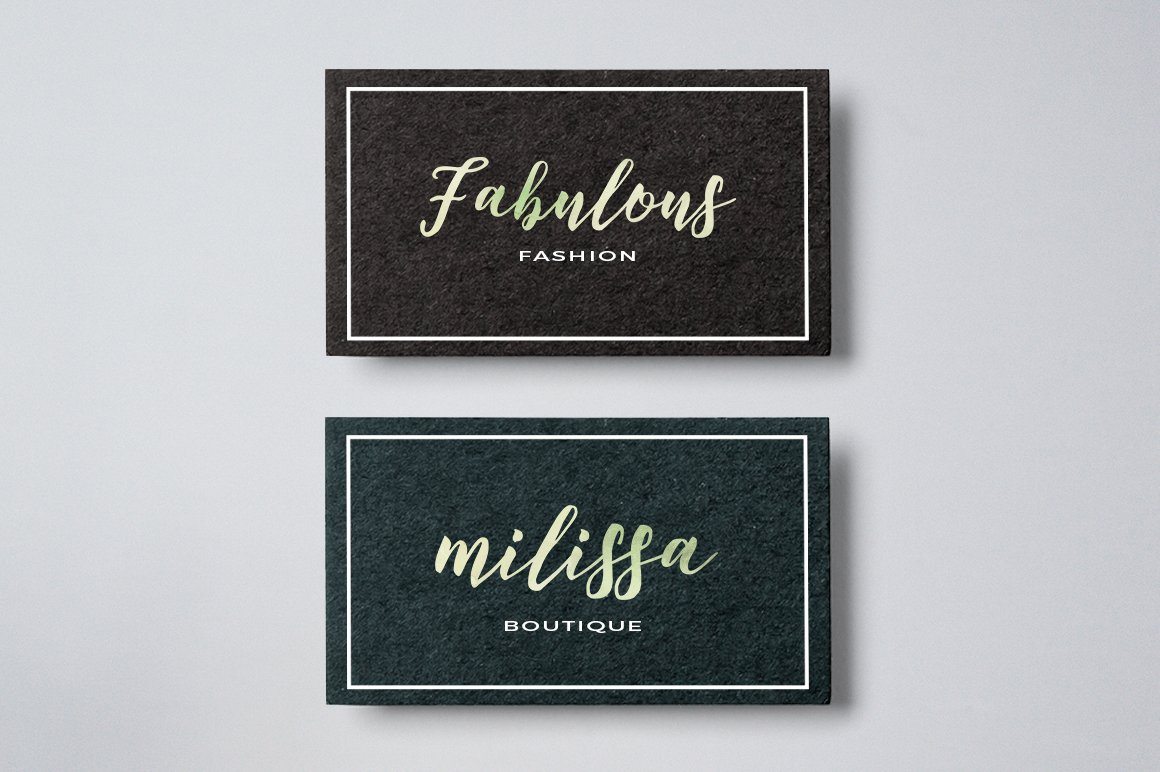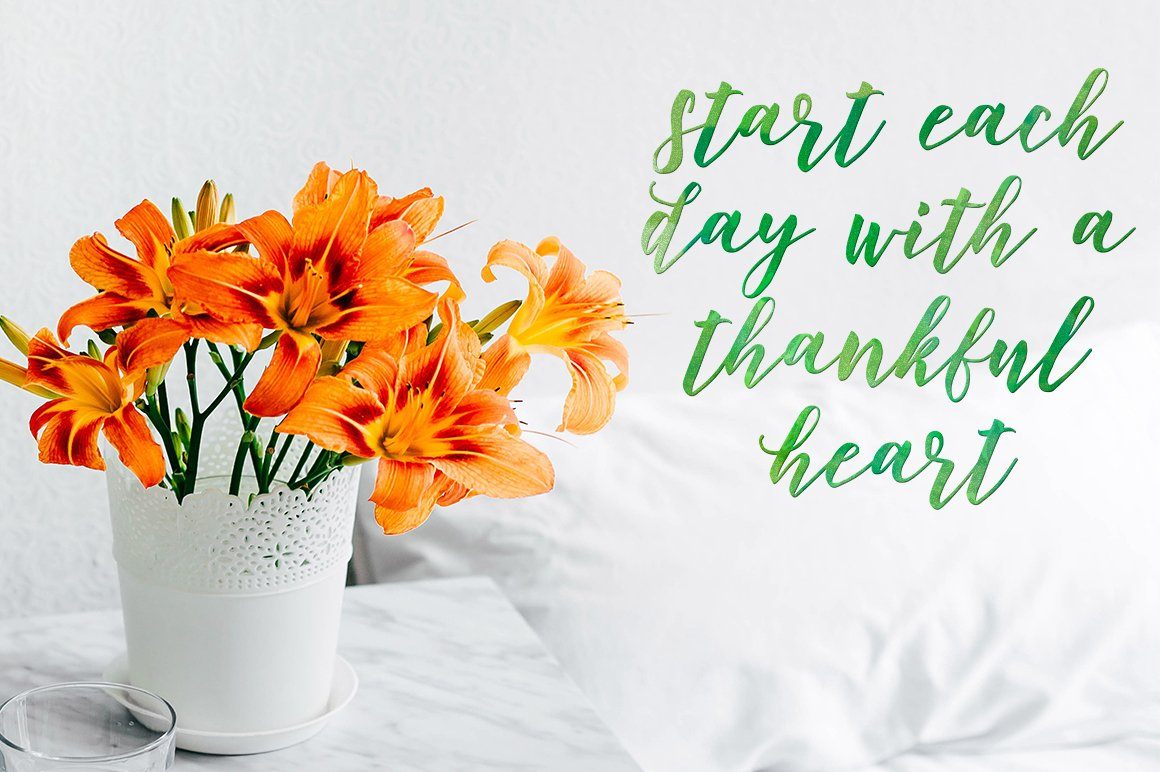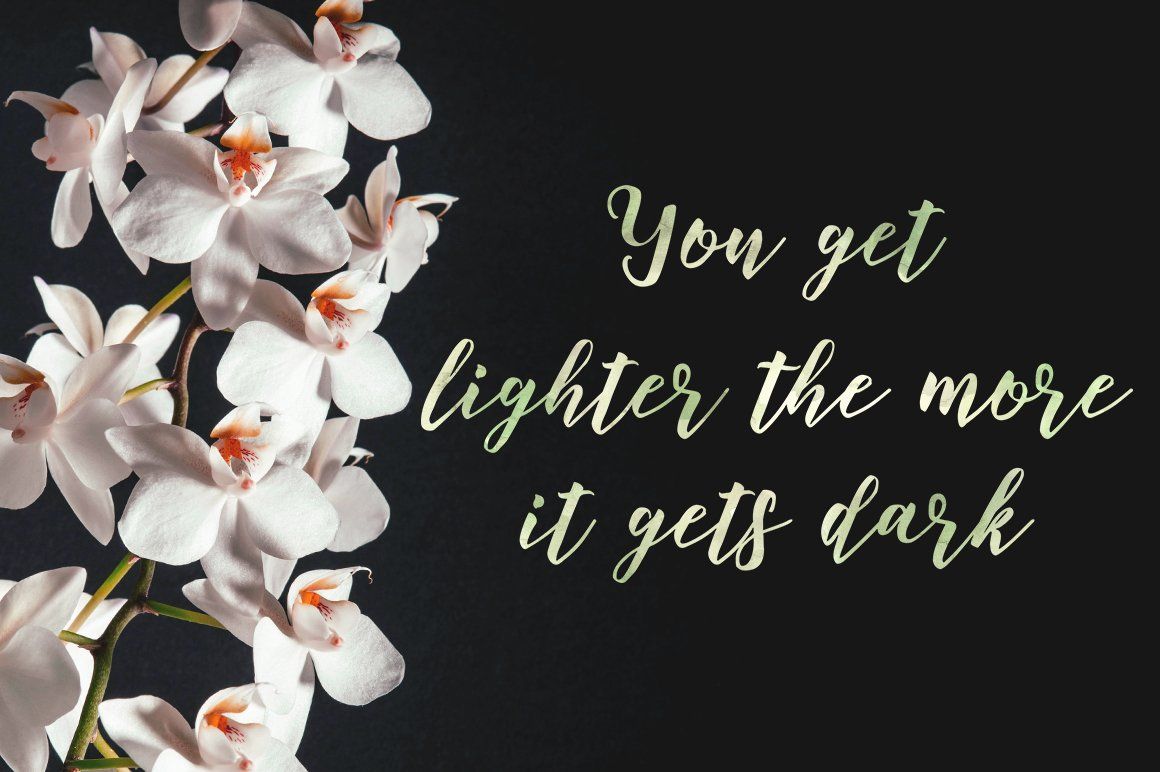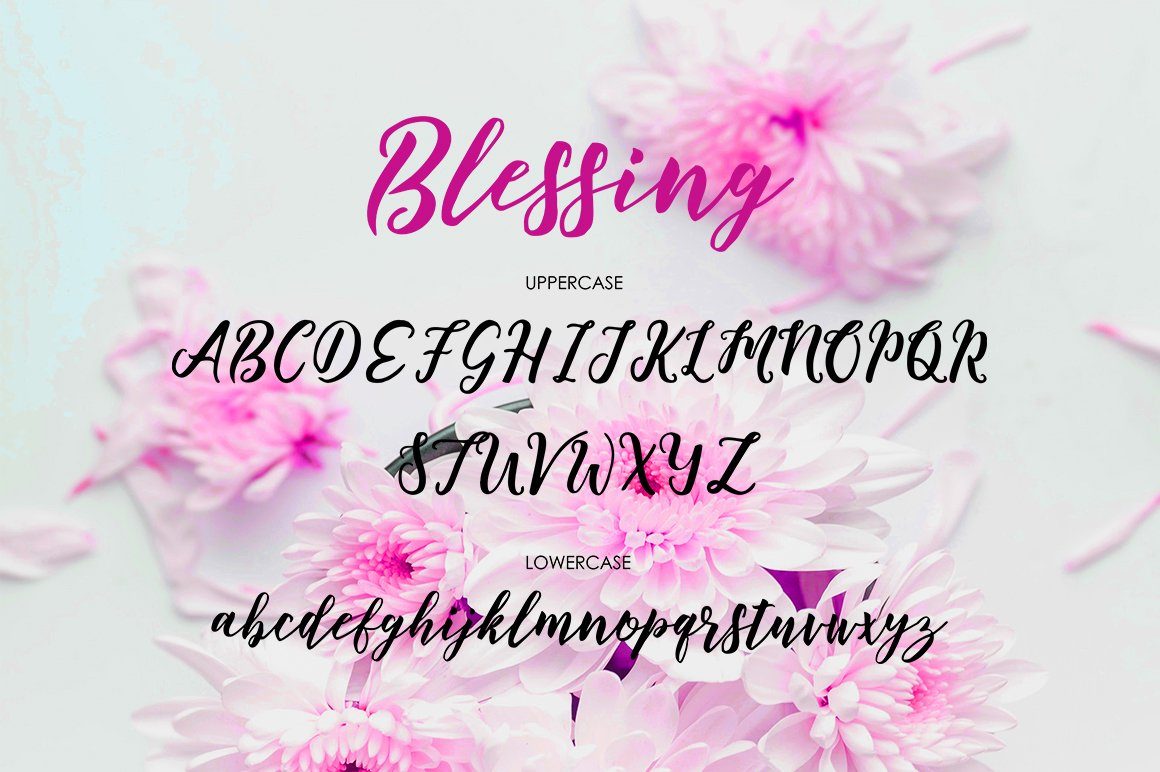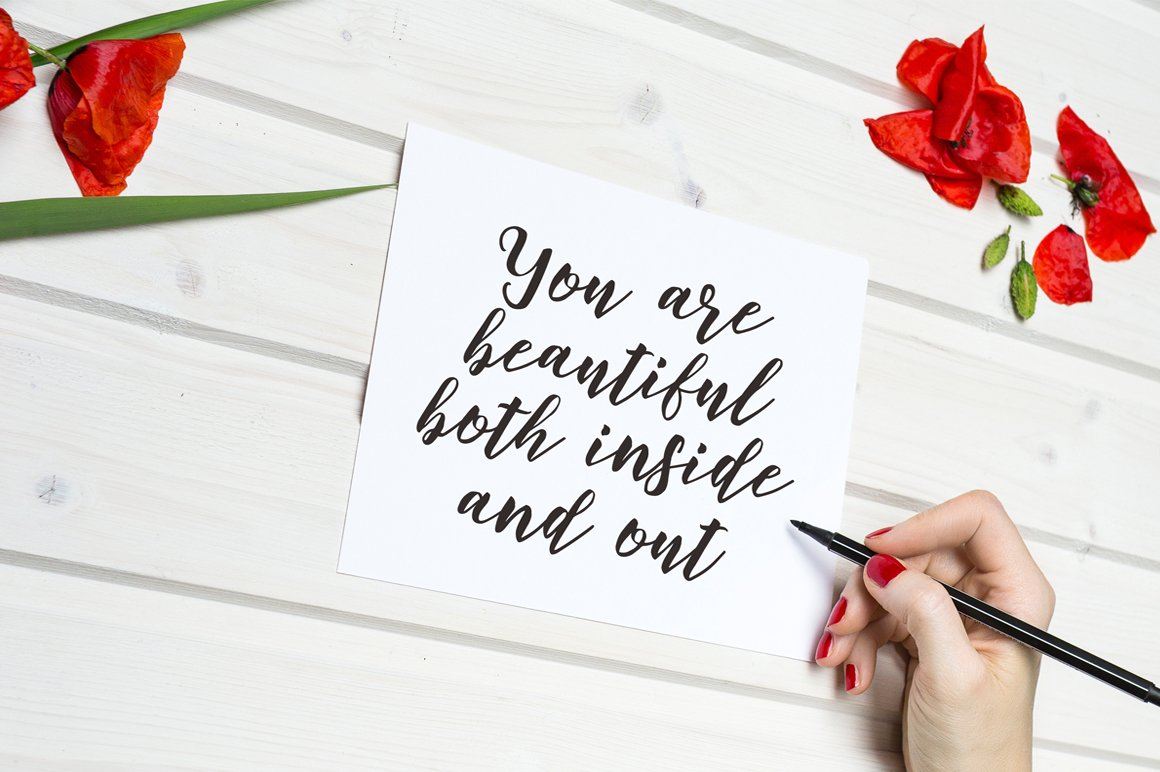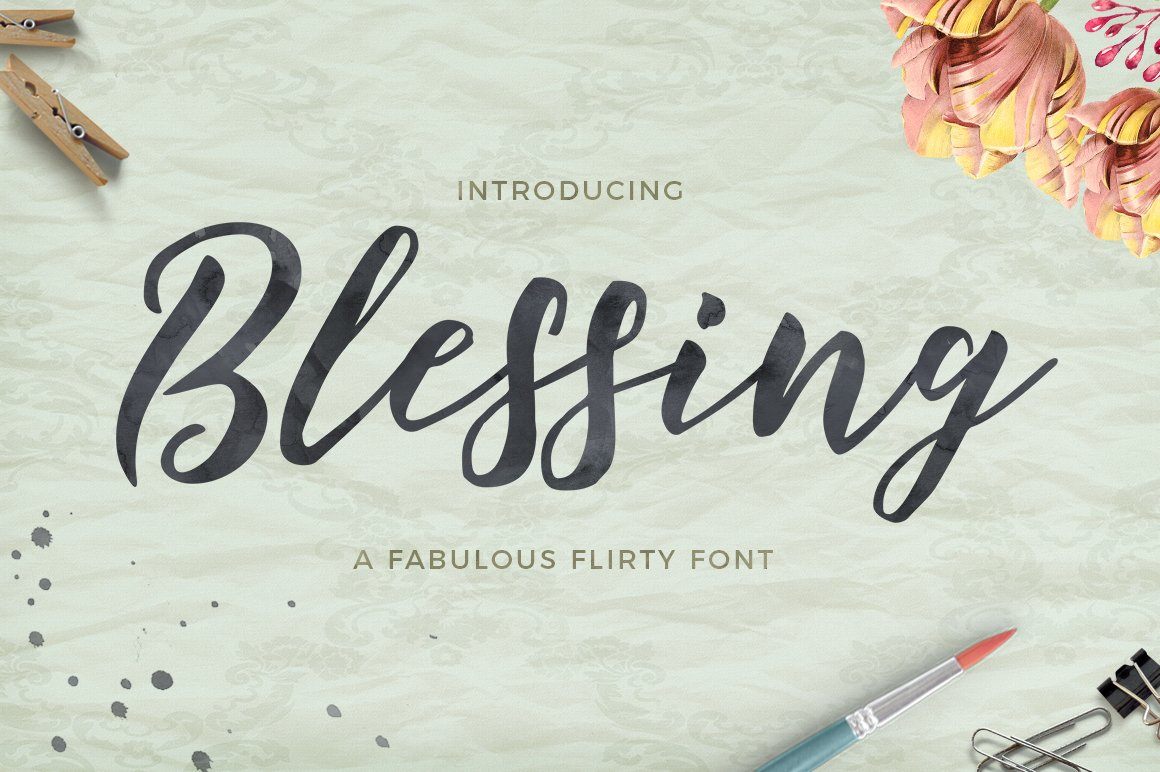
Blessing
About Blessing
Blessing Script modern font, organic, dynamic and energetic sytle.Can used for various purposes. such as the title, signature, logo, correspondence, wedding invitations, letterhead, signage, labels, newsletters, posters, badges, etc. Files included: Blessing Script (otf) Blessing Script (ttf) To enable the OpenType, you need a program that supports OpenType features such as Adobe Illustrator CS, Adobe Indesign & CorelDraw X6-X7, Microsoft Word 2010 or later versions. Thanks so much for looking and please let me know if you have any questions.